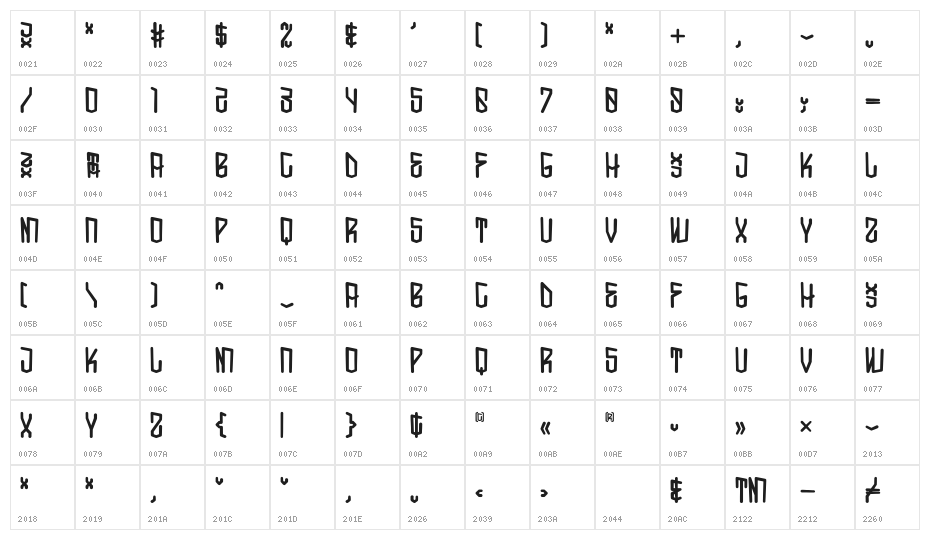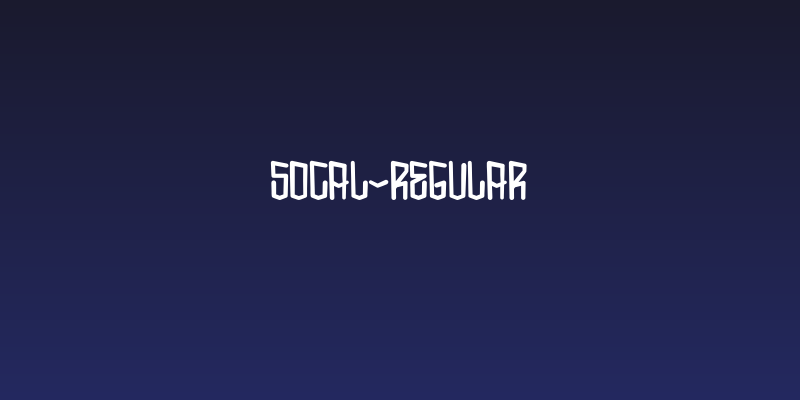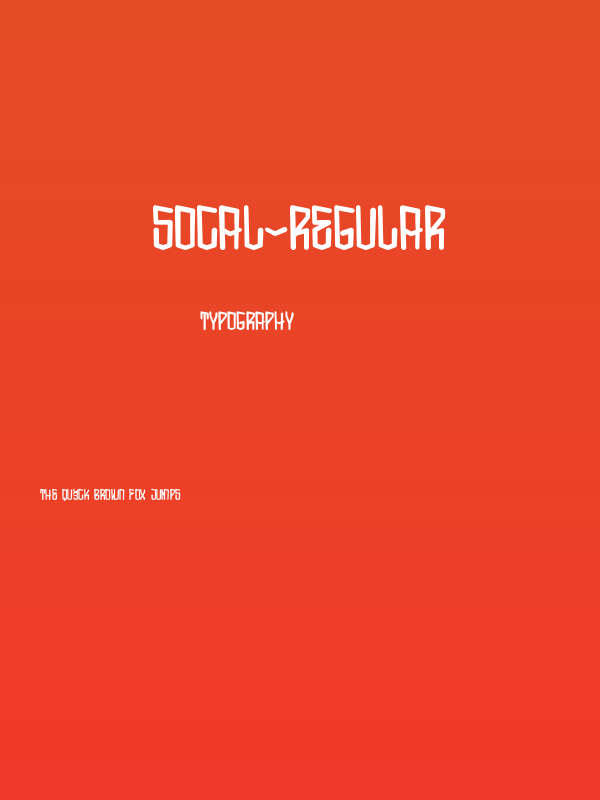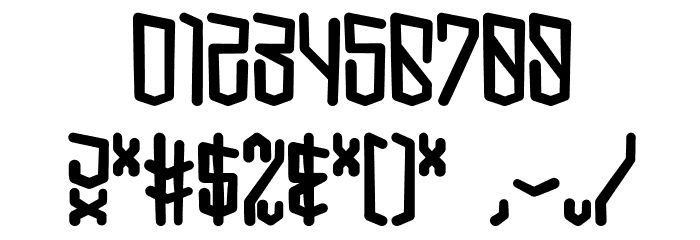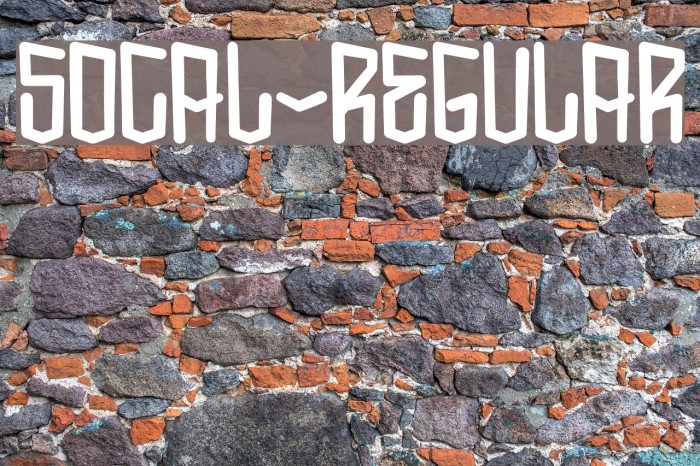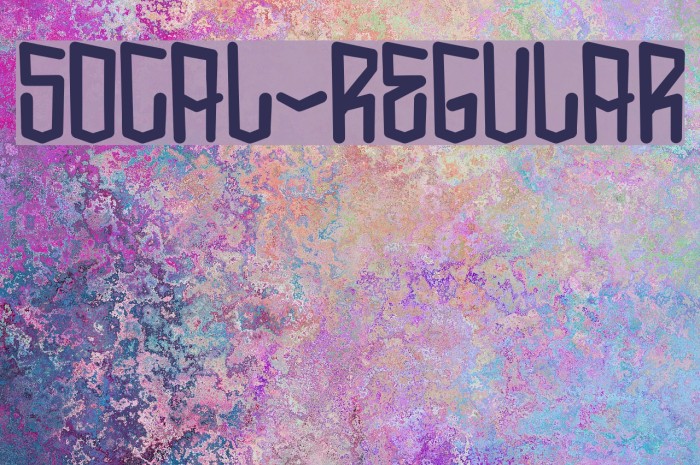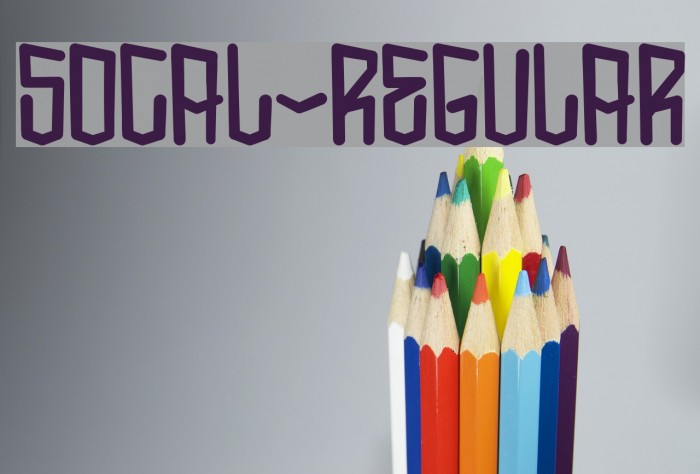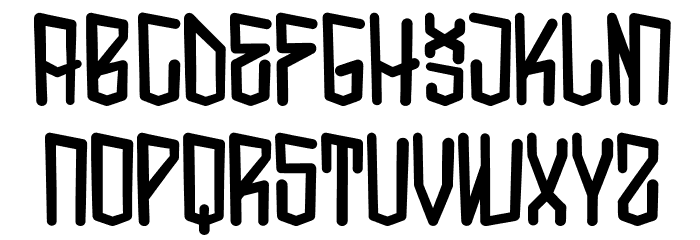
SoCal-Regular Font
SoCal-Regular Description
This font features a bold, geometric style with a distinctive urban flair. The characters are constructed with thick, uniform strokes that create a strong visual impact. The angular design and sharp edges give it a modern, edgy appearance, while maintaining readability. The uppercase and lowercase letters share a consistent height, contributing to a cohesive look. Numbers and special characters are designed to match the boldness and style of the alphabet, making it suitable for a variety of design applications. The font's unique aesthetic makes it ideal for projects that require a contemporary and assertive typeface.
| Proposed Projects | Perfect for streetwear branding, music album covers, event posters, and urban-themed designs. |